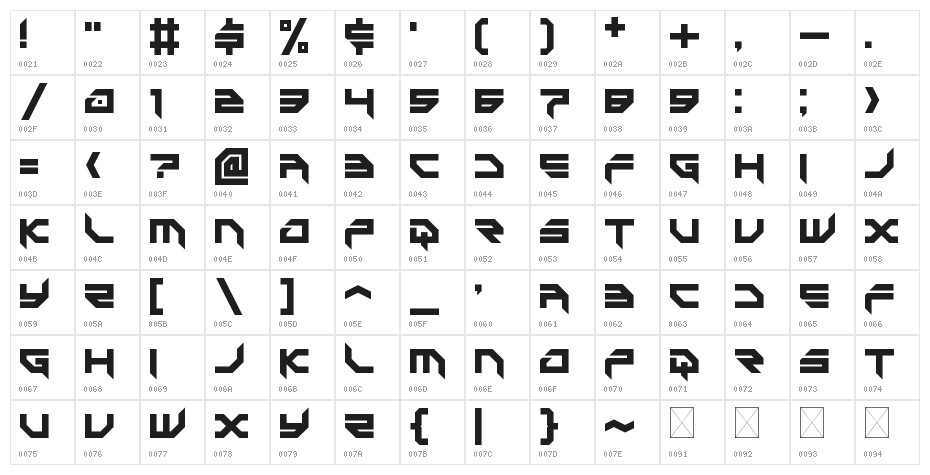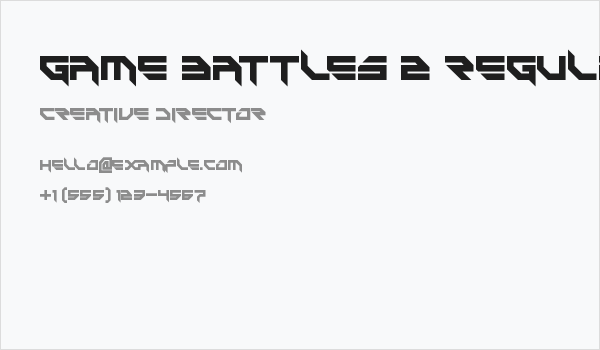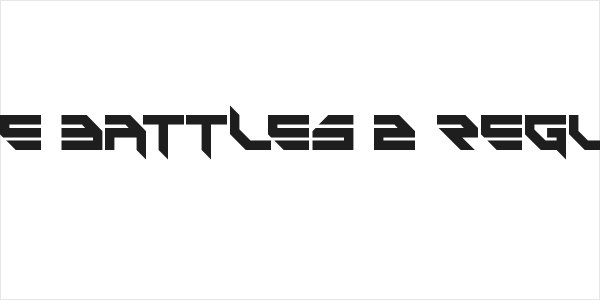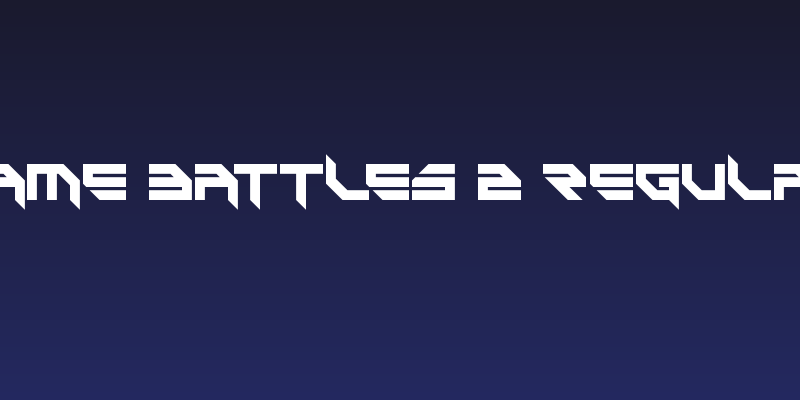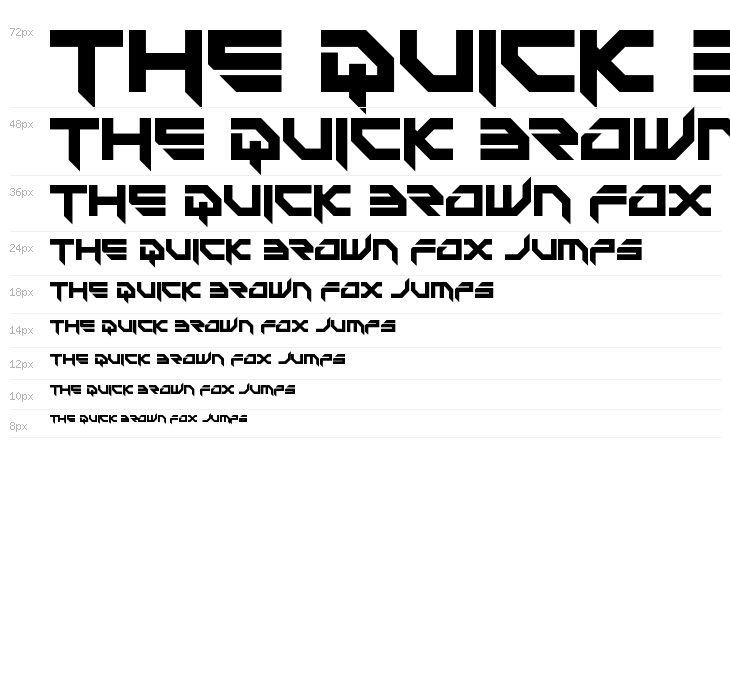
Game Battles 2 Regular Font
Game Battles 2 Regular Description
This font features a bold, geometric design with sharp angles and a futuristic aesthetic. The characters are constructed with straight lines and angular cuts, giving it a mechanical and edgy appearance. Each letter and number is distinct, with a consistent thickness throughout, contributing to its uniformity. The font includes uppercase and lowercase letters, numbers, and a variety of special characters. Its design is reminiscent of digital or sci-fi themes, making it suitable for projects that require a modern and tech-oriented look.
| Proposed Projects | Ideal for video game titles, tech branding, sci-fi movie posters, and digital interfaces. |